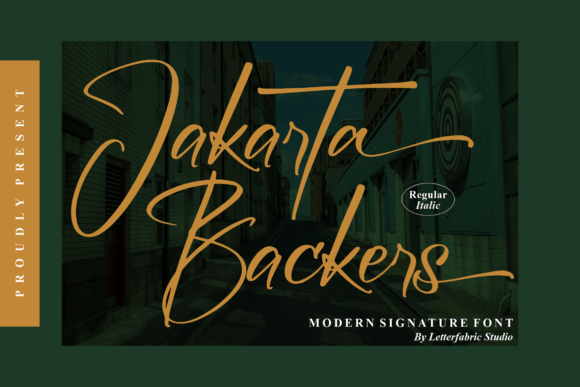
Indulge in the captivating world of Jakarta Backers, a script font crafted with meticulous precision to elevate your designs to new heights. Its graceful curves and elegant flourishes will dance across your creations, leaving an unforgettable mark on your audience.
Jakarta Backers is the epitome of modern calligraphy, with its distinctive, well-balanced letters that exude a timeless sophistication. Its versatility knows no bounds, empowering you to craft a diverse range of designs that will captivate and inspire.
Whether you seek to create a striking logo that commands attention, or a heartfelt invitation that conveys your sincere emotions, Jakarta Backers is your ultimate companion. Its ability to effortlessly blend with other fonts ensures seamless integration into your existing design repertoire.
Embrace the beauty of Jakarta Backers and unlock a world of creative possibilities. Let its elegant strokes ignite your imagination and transform your designs into works of art that resonate with your audience.
Immerse yourself in the world of Jakarta Backers and experience the transformative power of a font that embodies modernity, elegance, and boundless versatility. Your designs will radiate with a captivating charm that will leave a lasting impression on all who encounter them.